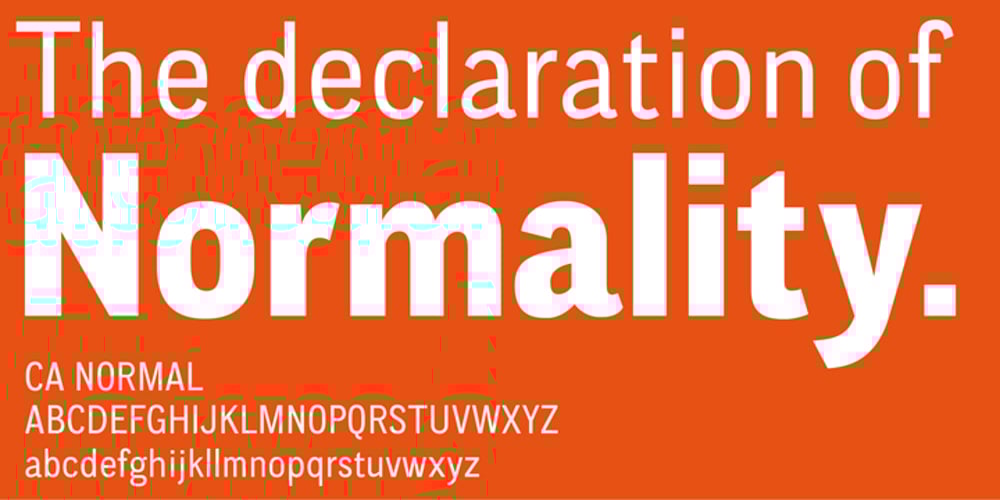
CA Normal Font Family was designed by Stefan Claudius and published by Cape Arcona Type Foundry. CA Normal contains 15 styles and family package options. CA Normal is a typeface aiming for beauty without ostensible effects, merely relying on clarity and well balanced proportions. True beauty is not to be found in perfect geometry, so slight irregularities and inconsequences are spread throughout the typographic image. That’s perfection through imperfection. CA Normal merges influences from European grotesques and American gothics, breeding an experimental mongrel. The underlying concept stays in the background, giving the design a great self-evidence. Although it is doubtful if there can be such thing as neutrality, CA Normal comes pretty close to what people mean when speaking of a neutral font. Nevertheless it’s not faceless, anonymous or confound able. It’s just that the charm comes from subtle details rather than obvious design features. As good text typefaces must not be too smooth nor too agitated, CA Normal is smuggling little uneven details into the typographic image, that keep the readers eye awake. The well crafted oblique follows the grotesque tradition which knows no individually drawn italics. A rather unexpected addition is the reverse oblique, a style mainly used for maps. Under the classic surface lies a modern well equipped font, featuring small caps, a Central European character set and numerals in all kinds of flavors. Numerous ligatures round up the overall impression. By default CA Normal will set numbers as proportional lining figures. But if you prefer oldstyle figures, or tabular figures, just use the OpenType functions of your layout program. These allow access to the small caps as well, which feature a complete central European character set, brackets, punctuation and lining figures in small caps height.